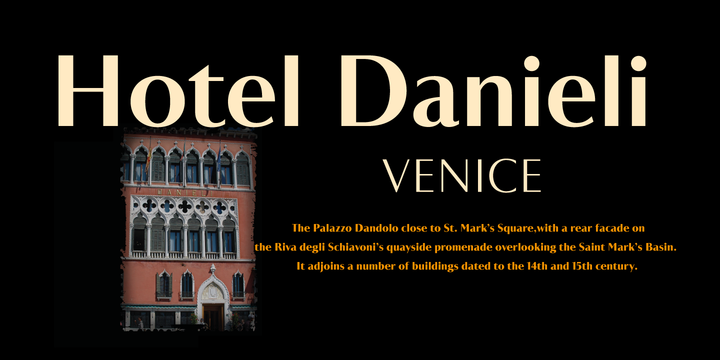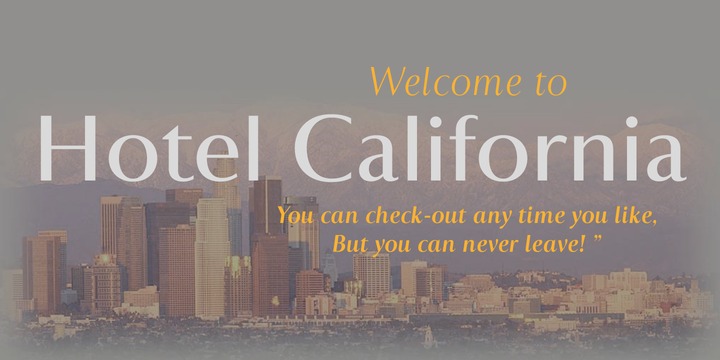
Astoria Classic Sans Family Font: Elevate Your Design with Elegance
The world of typography has just gotten a little more exciting with the introduction of the Astoria Classic Sans Family Font. This latest addition to the Astoria Range is a game-changer for designers and crafters looking for a font that exudes elegance and sophistication. In this article, we’ll dive into the characteristics, features, and benefits of Astoria Classic Sans, and explore how it can elevate your design projects.
What is Astoria Classic Sans?
Astoria Classic Sans is a sans-serif font family that boasts the same basic characteristics as its counterpart, Astoria, but with a unique twist. The vertical stress in Astoria Classic Sans gives it a distinctive look that sets it apart from other fonts in the same family. As a san serif companion to Astoria Sans, Astoria Classic Sans offers a fresh and modern take on traditional typography.
Key Features of Astoria Classic Sans
- Vertical Stress: Astoria Classic Sans features vertical stress, which gives it a unique and elegant appearance.
- Old-Style Italics: Unlike Astoria, Astoria Classic Sans features old-style italics that have a modern twist.
- Designed for Text: Astoria Classic Sans was designed specifically as a text face, making it perfect for body text, but it also works exceptionally well as a headline font.
- San Serif Companion: As a san serif companion to Astoria Sans, Astoria Classic Sans offers a versatile and cohesive look for your design projects.
Benefits of Using Astoria Classic Sans
So, why should you choose Astoria Classic Sans for your design projects? Here are just a few benefits of using this exceptional font:
- Elegance and Sophistication: Astoria Classic Sans exudes elegance and sophistication, making it perfect for high-end designs, luxury brands, and editorial projects.
- Versatility: With its clean and modern design, Astoria Classic Sans can be used for a wide range of applications, from body text to headlines, and even titles and captions.
- Readability: The vertical stress and classic design of Astoria Classic Sans make it highly readable, even at small font sizes.
- Uniqueness: Astoria Classic Sans has a distinctive look that sets it apart from other fonts, making it perfect for designers looking to create something truly unique.
Who is Astoria Classic Sans for?
Astoria Classic Sans is perfect for a wide range of designers and crafters, including:
- Graphic Designers: Astoria Classic Sans is a great addition to any graphic designer’s font library, offering a versatile and elegant solution for a wide range of design projects.
- UI/UX Designers: The clean and modern design of Astoria Classic Sans makes it perfect for UI/UX designers looking for a font that will enhance the user experience.
- Editors and Publishers: Astoria Classic Sans is an excellent choice for editors and publishers looking for a font that is both elegant and readable.
- Crafters and Makers: Astoria Classic Sans is also perfect for crafters and makers who want to add a touch of elegance and sophistication to their projects.
| Author | Alan Meeks |
In conclusion, the Astoria Classic Sans Family Font is an exceptional addition to any design project. With its unique blend of elegance, sophistication, and versatility, Astoria Classic Sans is sure to elevate your designs and set you apart from the crowd. Whether you’re a graphic designer, UI/UX designer, editor, or crafter, Astoria Classic Sans is a font that is sure to impress.